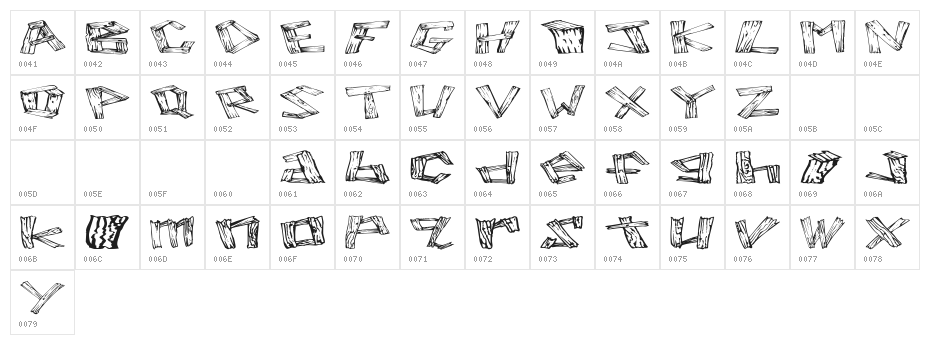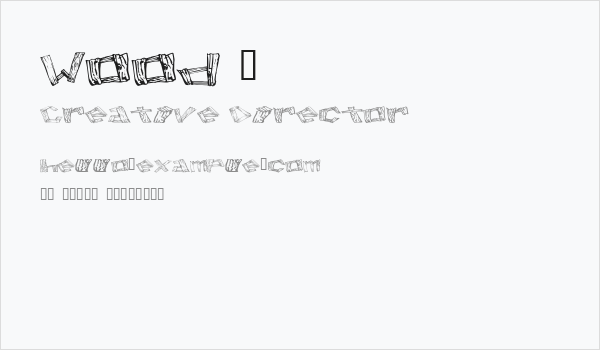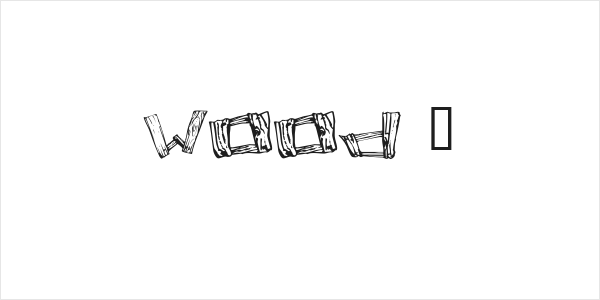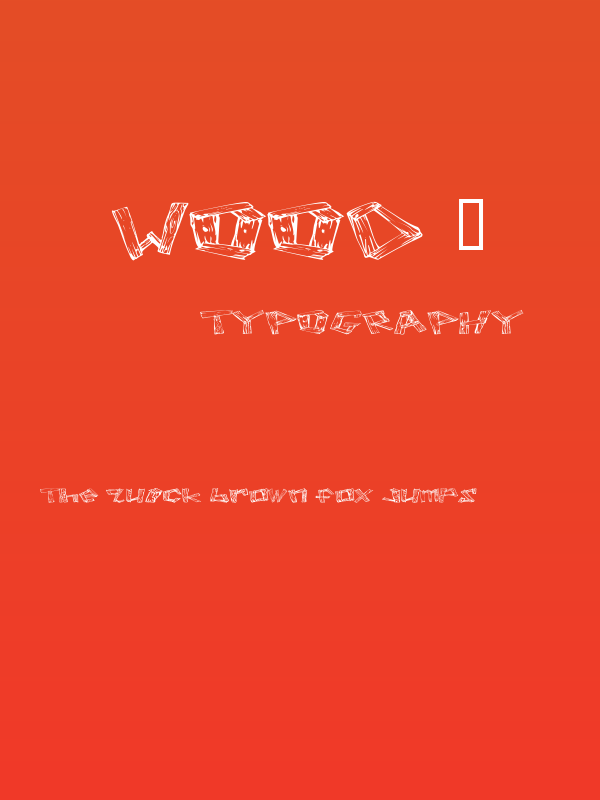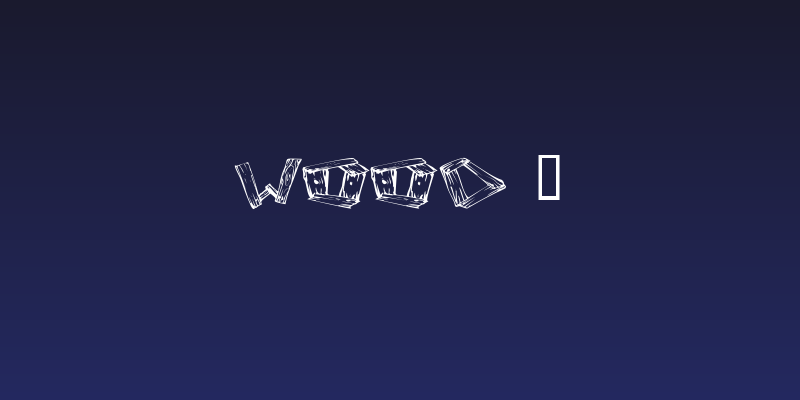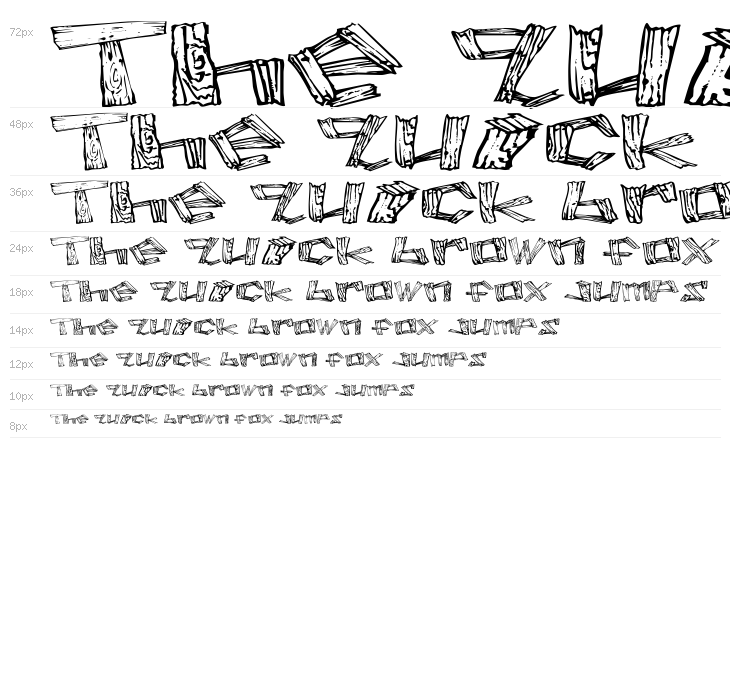
Wood 2 Font
| Progetti proposti | Ideal for nature-themed designs, eco-friendly branding, rustic wedding invitations, or any project that requires a natural, handcrafted aesthetic. |